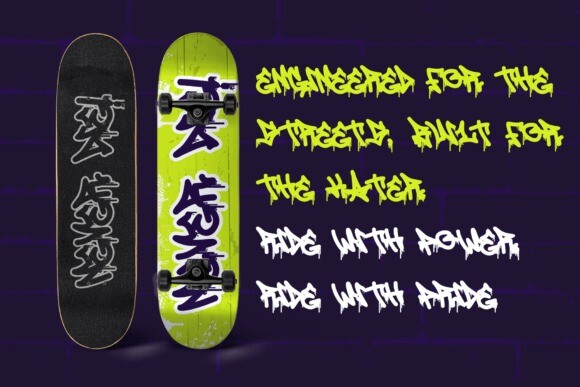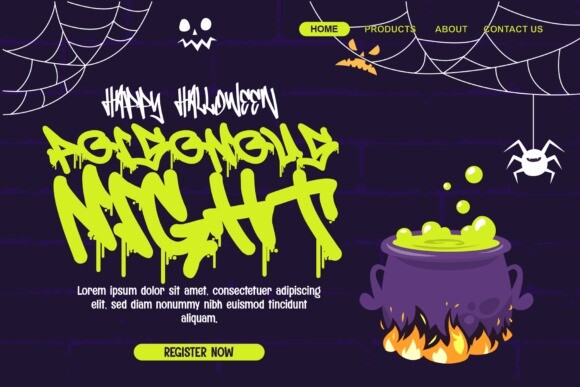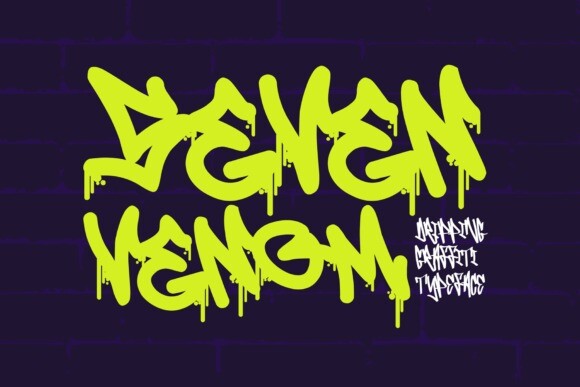
Seven Venom Font
Seven Venom Font, a distinctively sharp monoline font that flawishly merges the graffiti style with a unique dripping effect. Offered in two alluring styles — drip and regular, this font deftly captures the rebellious spirit of the street culture and the raw edginess of graffiti art. The drip variation introduces a daring and offbeat dimension to your creative projects, making them resonate with a bold, untamed charm. In contrast, the regular style encapsulates the zenith of clean and unobstructed graffiti flair.
Perfect for a spectrum of creations from electrifying posters, contemporary streetwear designs, to bone-chilling Halloween graphics, Seven Venom injects your designs with an unmistakable gritty character. Stand out in a crowd and draw your audience in with its distinct urban appeal, an echo of the vibrant energy of bustling cityscapes. Seven Venom facilitates a fusion of audacious originality and streamlined simplicity that leaves an indelible impact.